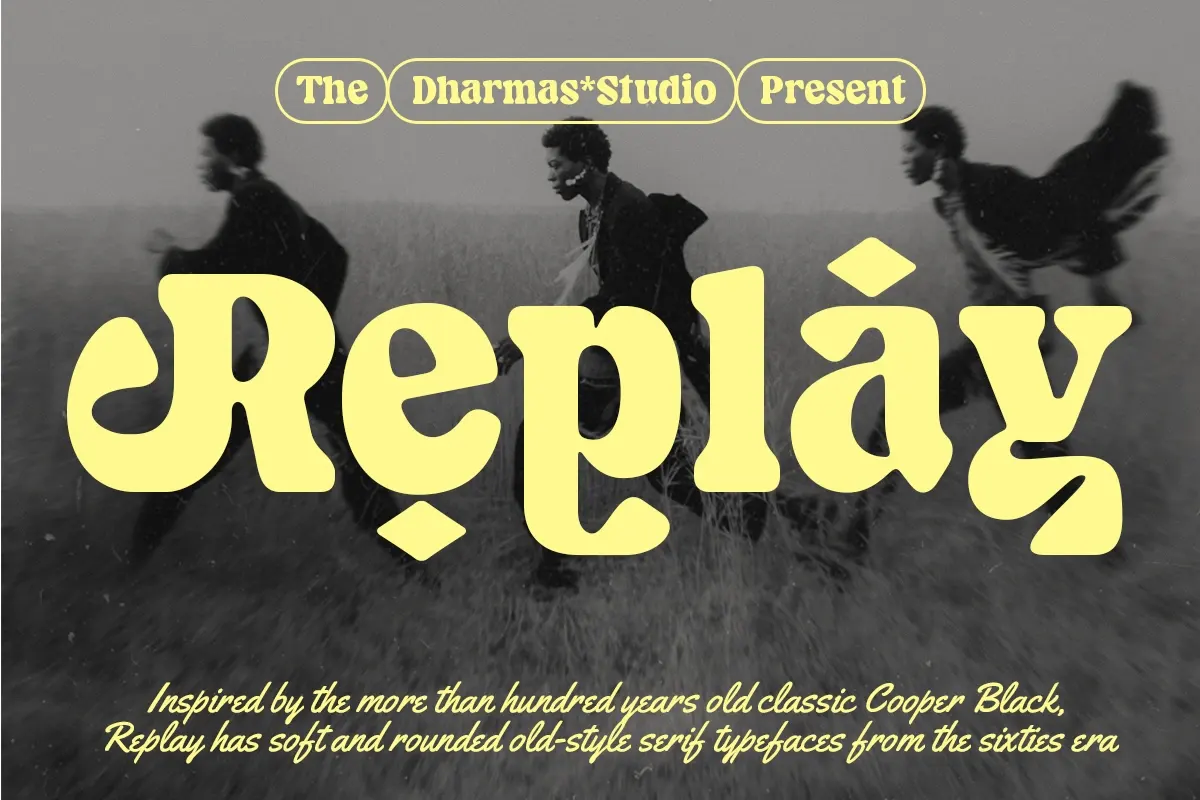
The Replay - Sixties Rounded Serif Font Free Download is a nostalgic and stylish typeface that combines retro design elements with modern flair. Featuring rounded serifs and a smooth, approachable feel, this font is perfect for creating fun and vibrant logos, posters, branding, and digital content. Whether you're designing for a vintage brand, retro-themed event, or playful project, Replay adds a unique and cheerful vibe to your work.
Replay - Sixties Rounded Serif Font Free Download is ideal for designers looking to infuse their work with a playful, retro aesthetic. Perfect for vintage branding, creative campaigns, or projects that need a bold yet friendly typeface, this font will help your designs stand out. Download it today and add a touch of sixties style to your creative work!